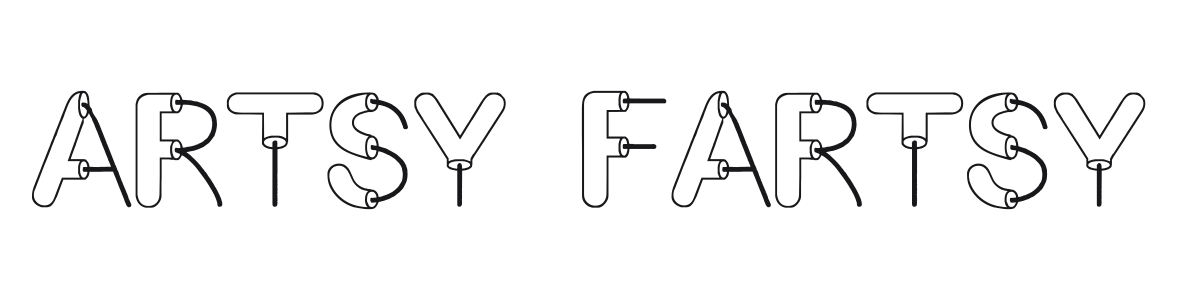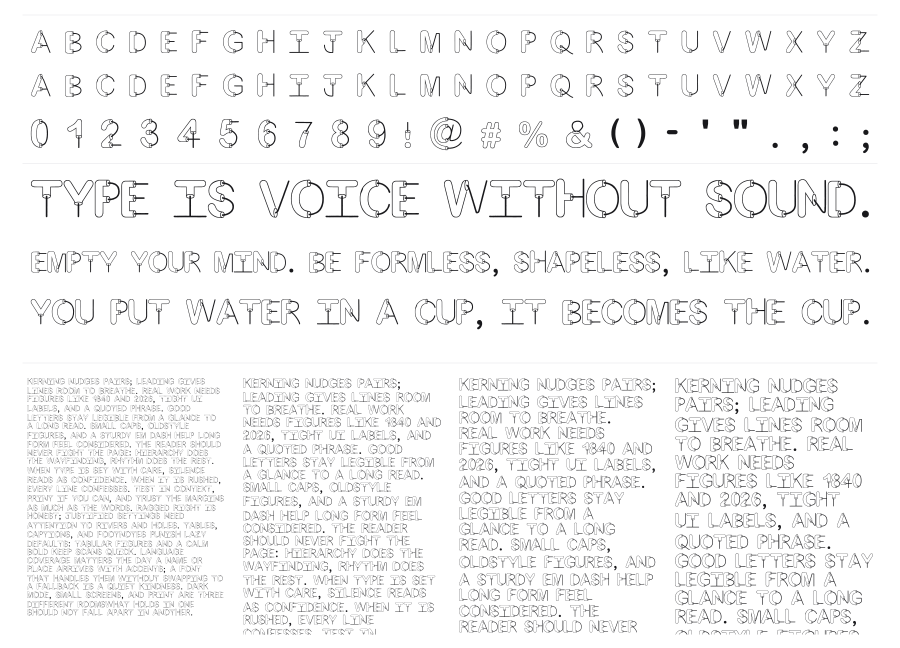
Artsy Fartsy
Artsy Fartsy is a quirky outline display font whose letters appear built from hollow tube-like strokes with small circular dot ornaments at junctions and terminals. The effect looks hand-assembled, like letters fashioned from bent wire or pipe. It brings a lighthearted, crafty energy to headlines, posters, and novelty packaging.